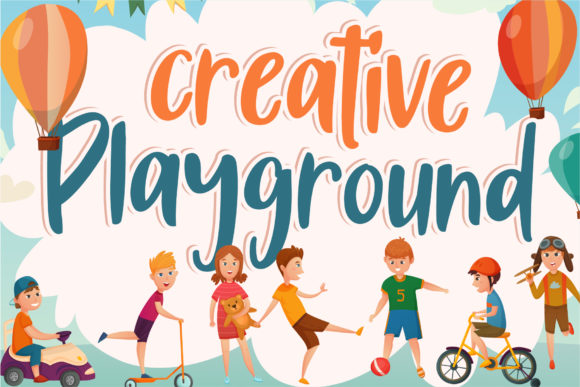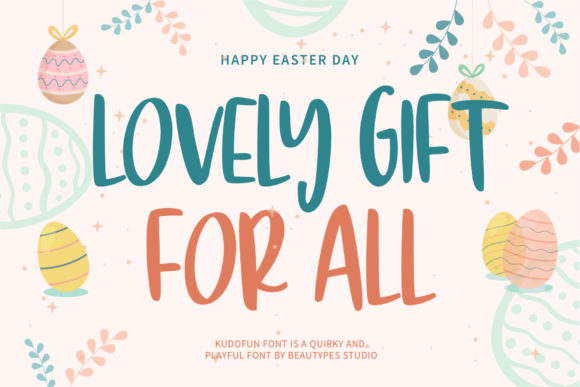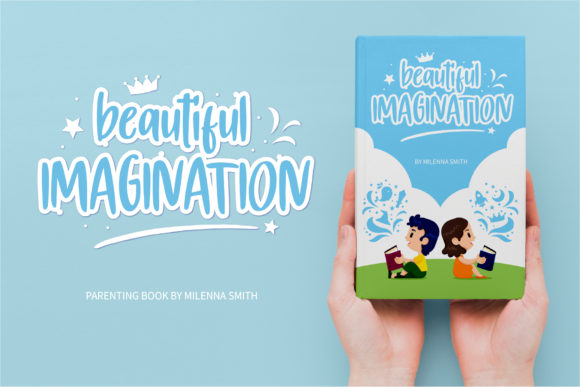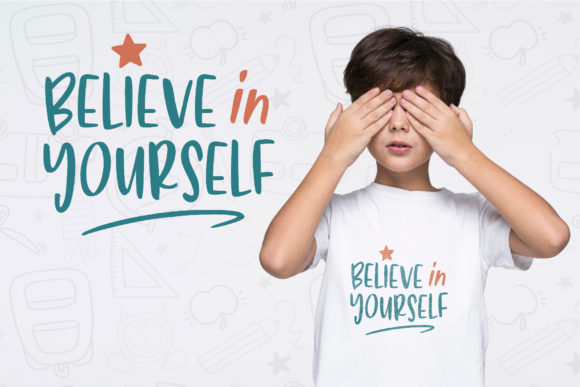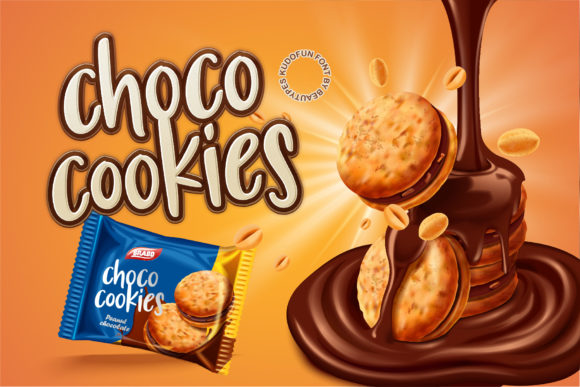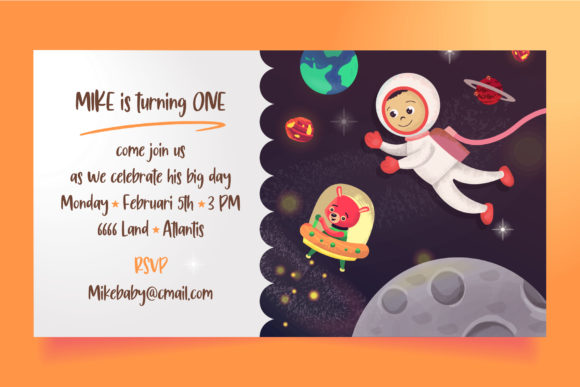
Introduction to Kudofun Font
Do you remember the moment when you discovered that perfect font that brought your design project to life? For designers, that ‘aha’ moment is a game-changer. And today, we’re excited to introduce you to a fantastic addition to your design resource arsenal – the Kudofun Font.
This cool, jolly, and playful display font is a breath of fresh air for any creative project. Its vibrant personality is sure to delight kids and kids-at-heart alike. Whether you’re designing a children’s book, a playful logo, or a fun website, the Kudofun Font is the perfect companion to bring your vision to life.
What sets Kudofun Font apart is its high quality and versatility. With its transparent background, you can easily combine it with bright colors and backgrounds to create stunning visual effects. And the best part? It’s available for free download, making it an invaluable resource for designers on a budget.
Key Features of Kudofun Font
- Kudofun Font is a high-quality design resource ideal for creative projects requiring a unique touch.
- Kudofun Font boasts a high resolution, ensuring crisp and clear typography even at larger sizes.
- One of the unique characteristics of Kudofun Font is its playful and whimsical design, making it perfect for creative projects that require a touch of personality.
Honest Review: Kudofun Font
I recently had the chance to experiment with the Kudofun Font for a creative project and was thoroughly impressed. As a designer, I always appreciate a reliable and high-quality design resource like this font.
- Unique and quirky style that adds a touch of personality to any design
- Transparency is a standout feature, making it easy to layer and customize
The Kudofun Font is an excellent addition to any design arsenal, and I’ve already seen it bring a fresh perspective to several of my projects. The free download option has made it an instant favorite among my colleagues and clients alike.
- Some users may find the font’s quirky style too unconventional for certain projects
Overall, I’m thoroughly impressed with the Kudofun Font and would highly recommend it to designers looking for a unique and high-quality design resource. Whether you’re working on a personal project or a commercial campaign, this font is sure to bring a touch of creativity and personality to your work.
One of the best features of Kudofun Font is its transparent background, which makes it perfect for creating designs with a subtle, yet effective, touch of creativity. To get the most out of this font, be sure to use it in conjunction with other design elements to create a cohesive and visually appealing design.
Kudofun Font is perfect for a variety of creative projects, including social media graphics, presentations, and documents. It’s also great for use in branding and marketing materials, where a unique and eye-catching design is essential.